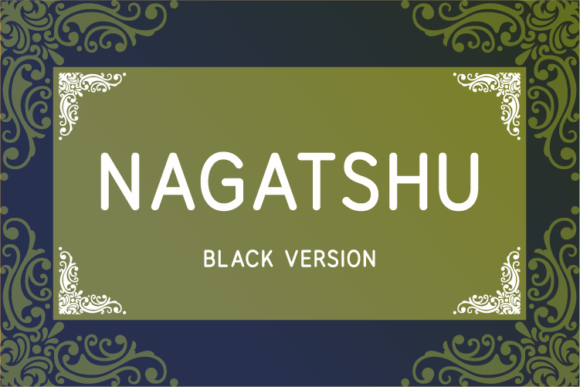
Nagatshu Black Font: Elevate Your Design with a Unique Sans Serif Style
In the world of typography, fonts play a crucial role in conveying messages, expressing emotions, and creating visual identities. With the vast array of fonts available, finding the perfect one for your design project can be overwhelming. However, if you’re looking for a font that combines classic typography with a unique twist, look no further than Nagatshu Black Font. In this article, we’ll explore the features, benefits, and uses of Nagatshu Black Font, and how it can bring your DIY projects to life.
Nagatshu Black Font: A Unique Sans Serif Style
Nagatshu Black Font is a stunning sans serif font that draws inspiration from classic typography. Its unique style sets it apart from other fonts, making it an excellent choice for designers looking to add a touch of elegance and sophistication to their work. The font’s clean lines, precise curves, and balanced proportions create a harmonious visual experience that is both aesthetically pleasing and highly legible.
One of the standout features of Nagatshu Black Font is its versatility. Whether you’re working on a branding project, a website design, or a print material, this font adapts seamlessly to any medium. Its bold and confident appearance makes it perfect for headlines, titles, and emphasis text, while its clear and readable design ensures that your content is easily digestible.
Benefits of Using Nagatshu Black Font in Your Design
So, why choose Nagatshu Black Font for your design projects? Here are just a few benefits that make it an excellent choice:
- Unique Style: Nagatshu Black Font offers a distinctive style that sets it apart from other sans serif fonts. Its classic inspiration and modern twist create a visually appealing contrast that grabs attention.
- High Legibility: The font’s clear and balanced design ensures that your text is easily readable, even at smaller sizes. This makes it perfect for body text, captions, and other content that requires clarity.
- Versatility: Nagatshu Black Font works well in various design contexts, from digital interfaces to print materials. Its adaptability makes it a valuable asset in your font library.
- Ease of Use: As a digital font, Nagatshu Black Font is easy to install and use in your design software. Its compatibility with popular applications ensures a seamless workflow.
Bringing Your DIY Projects to Life with Nagatshu Black Font
Are you a DIY enthusiast looking to add a professional touch to your projects? Nagatshu Black Font is an excellent choice for a variety of applications:
- Planners and Organizers: Use Nagatshu Black Font to create eye-catching titles, headings, and labels for your planners and organizers. Its bold appearance ensures that your content stands out.
- Art and Craft Projects: Add a touch of elegance to your art and craft projects with Nagatshu Black Font. Its unique style makes it perfect for titles, captions, and quotes.
- Web Design: Use Nagatshu Black Font to create stunning website headers, titles, and emphasis text. Its clean design and high legibility ensure a great user experience.
Typography Tips for Using Nagatshu Black Font
To get the most out of Nagatshu Black Font, here are some typography tips to keep in mind:
- Pair with Complementary Fonts: Combine Nagatshu Black Font with complementary fonts to create visual interest and hierarchy. Choose fonts that contrast with Nagatshu Black Font’s bold and sans serif style.
- Experiment with Sizes and Weights: Play with different sizes and weights of Nagatshu Black Font to create visual emphasis and hierarchy. Use the font’s bold weight for headlines and titles, and its regular weight for body text.
- Pay Attention to Line Spacing: Ensure that your text is easily readable by paying attention to line spacing. Aim for a line height that creates a clear and airy feel.
In conclusion, Nagatshu Black Font is a unique and versatile sans serif font that brings a touch of elegance and sophistication to any design project. Its classic inspiration, combined with its modern twist, makes it an excellent choice for designers and DIY enthusiasts alike. With its high legibility, versatility, and ease of use, Nagatshu Black Font is sure to become a valuable asset in your font library.